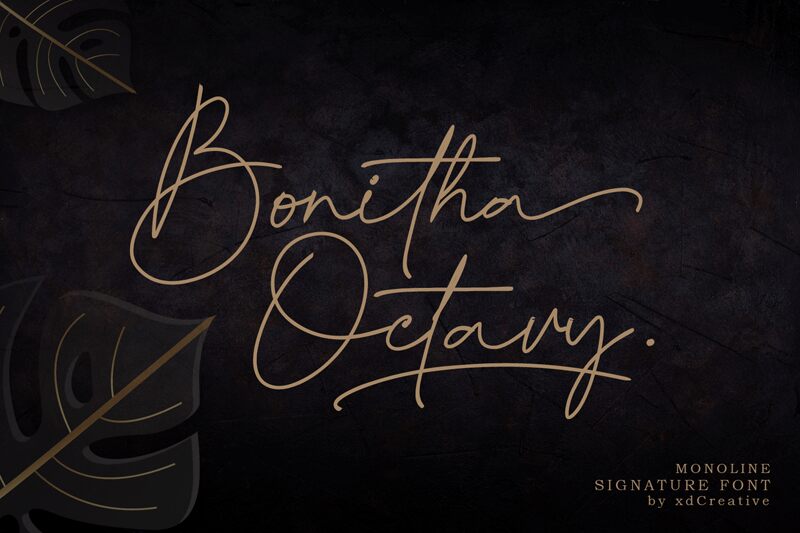
Bonitha Octavy
Bonitha Octavy feels equally charming and elegant. It looks lovely on wedding invitations, thank you cards, quotes, greeting cards, logos, business cards and every other design which needs a handwritten touch.
This font is PUA encoded which means you can access all of the glyphs and swashes with ease! It features a varying baseline, smooth lines, gorgeous glyphs and stunning alternates.